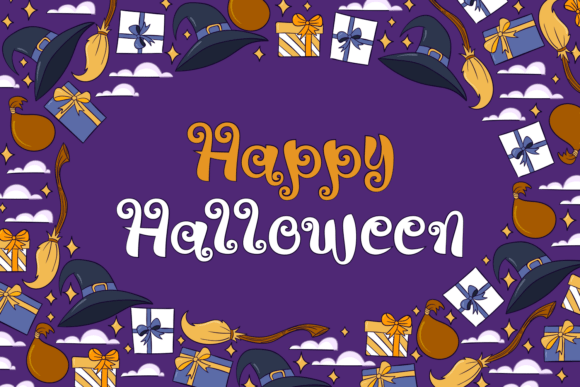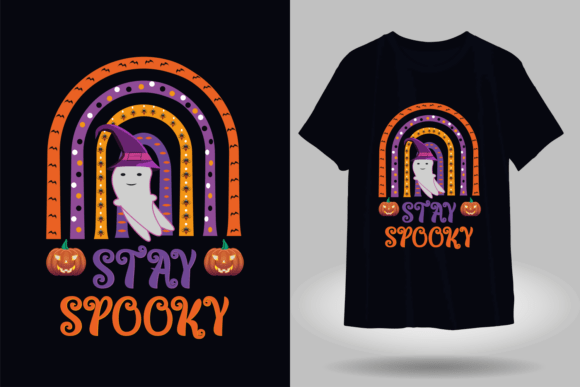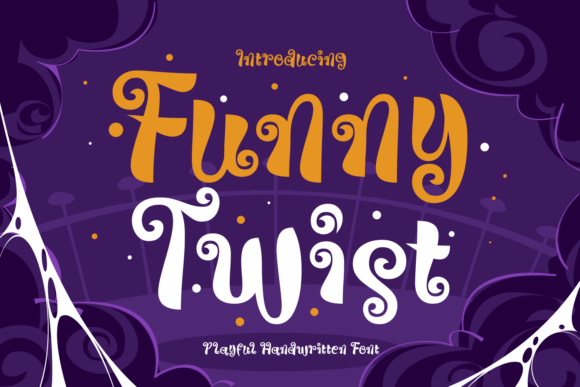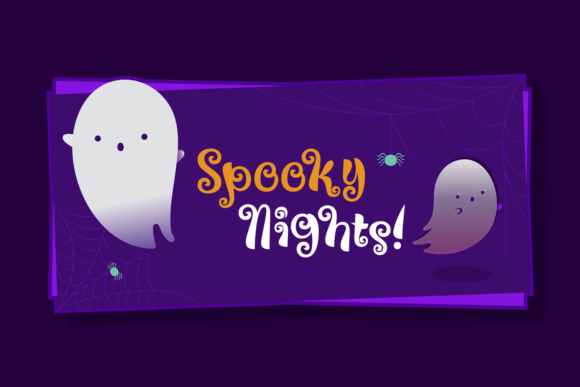
Funny Twist Font
About the Funny Twist Font
Let us introduce you to Funny Twist Font, where timeless design meets modern craftsmanship. Introducing “Funny Twist Handwritten Fonts”, your perfect companion for any creative project! Uniquely crafted with a spooky vibe, this font carries the spirit of Halloween with eerie elegance. An ideal choice to add a touch of playful horror to your designs, this font embodies the whimsical whimsy of October nights. From the masculine boldness of Dracula Fonts to the mysterious charm of Ghost Fonts, this font packs a punch.
Starry Night Fonts and Bat Fonts bring nocturnal allure to your projects, while the Holiday Fonts and Spooky Fonts evoke the thrill of festive celebrations. Whether looking to spruce up your posters with Poster Fonts or illuminate your designs with Lantern Fonts, this font is a charming asset.
No cuteness is lost in its design; Cute Fonts are also embedded, adding a pinch of sweetness amidst the horror. Witches, skulls, cemeteries, skeletons, and even the gothic graves, every bit of spine-chilling element is found in our Witch, Skull, Cemetery, Skeleton, Gothic, Graveyard, and Festival Fonts!
Step into the realm of fantasy with our Fantasy Fonts, or add a classic charm to your designs with Jack Fonts and Carved Fonts by 7ntypes. This font does not shy away from versatility either; it suits various products such as quotes or t-shirt designs, thanks to our Quote and T Shirt Fonts. And for those cozy nights engrossed in your favorite book, our Book Fonts bring stories to life with excellent readability and style. With “Funny Twist Handwritten Fonts”, let every letter tell a thrilling tale!